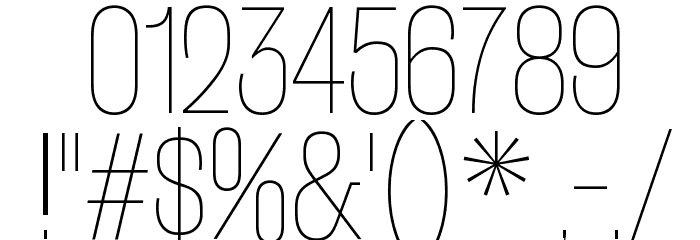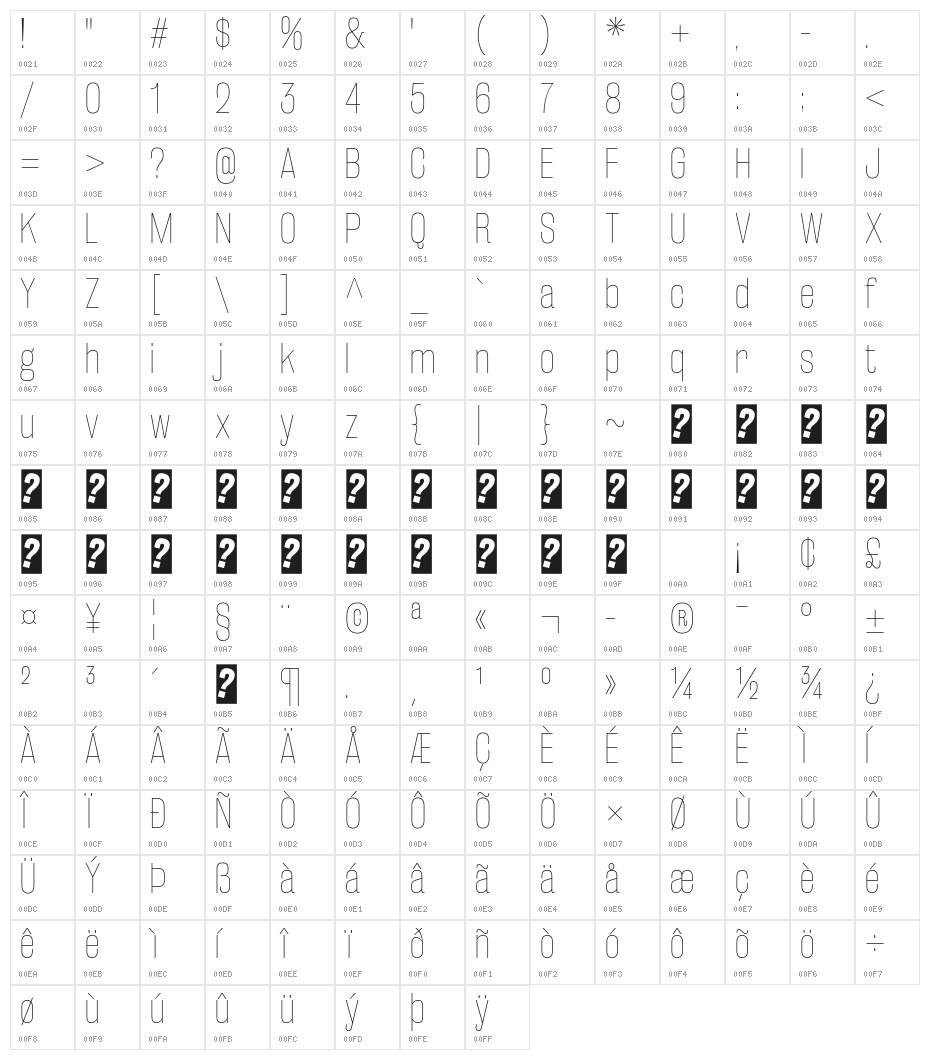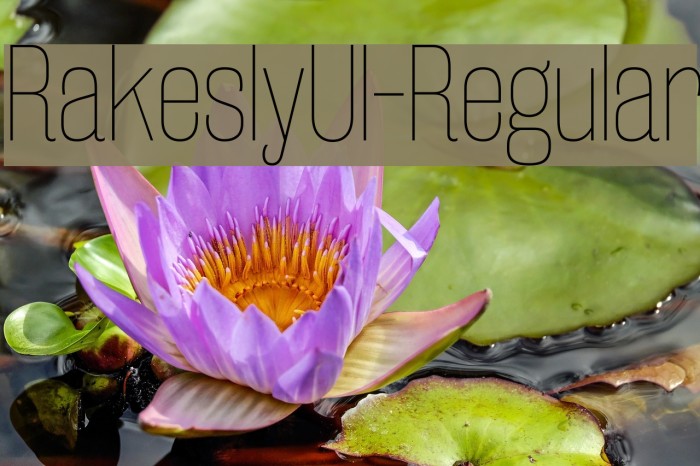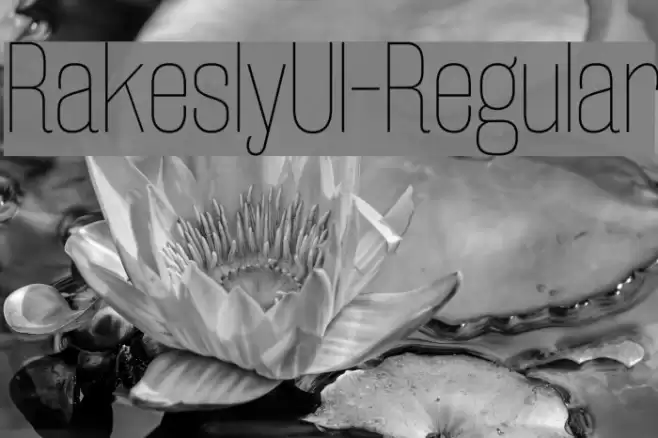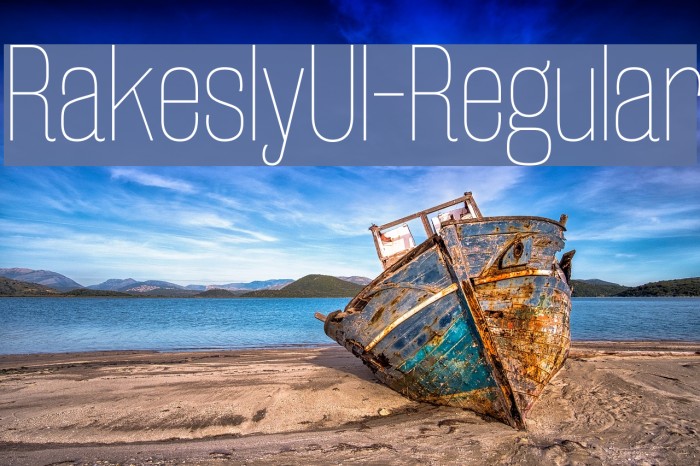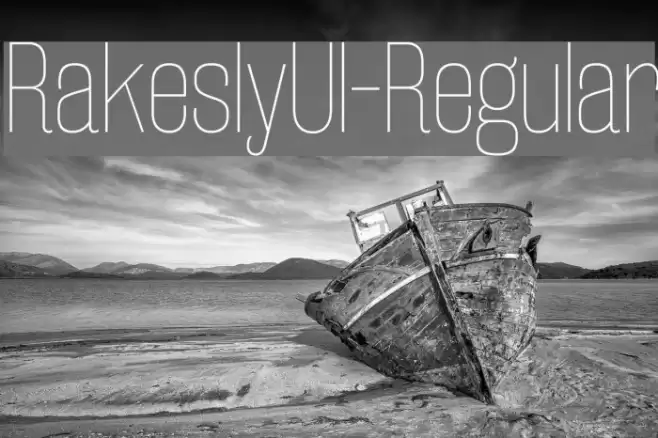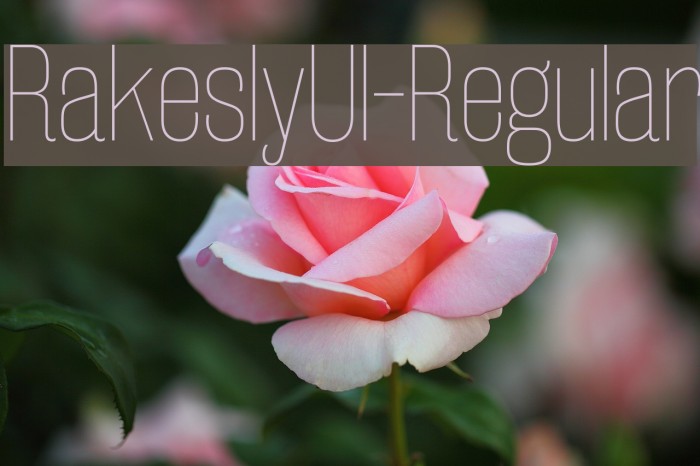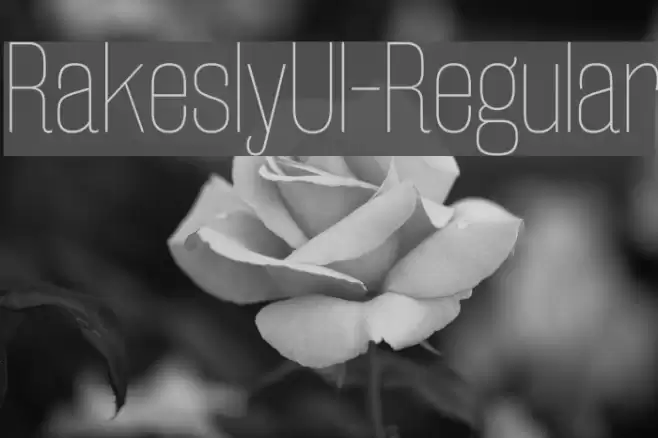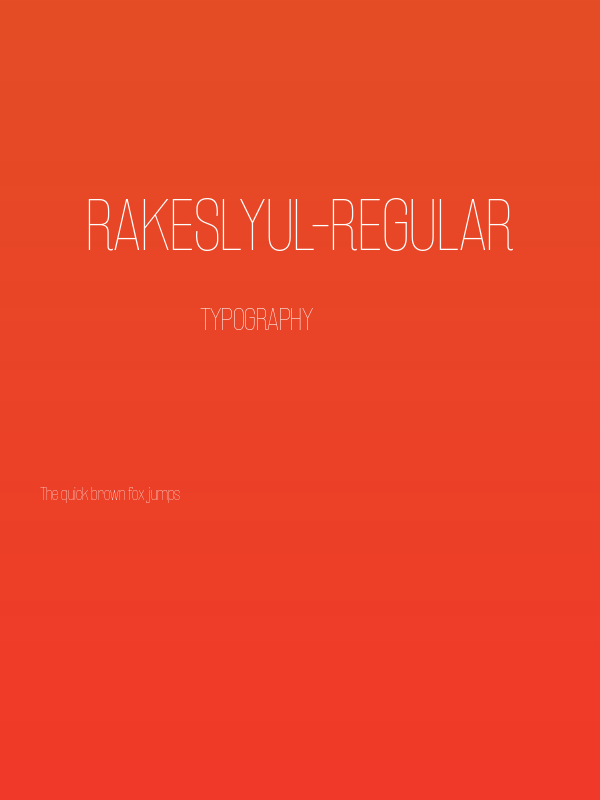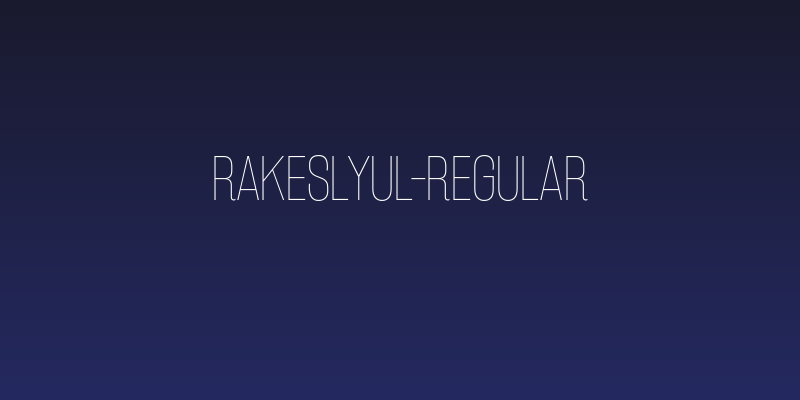
RakeslyUl-Regular Font
RakeslyUl-Regular Description
This font exhibits a sleek and modern design with ultra-lightweight strokes, giving it an elegant and minimalist appearance. The characters are tall and narrow, contributing to a sophisticated and airy feel. The uppercase and lowercase letters maintain a consistent height ratio, enhancing readability. The numerals are distinct and align well with the overall style, while the special characters are crafted with precision, complementing the font's clean aesthetic. Its geometric structure and refined lines make it suitable for contemporary design projects.